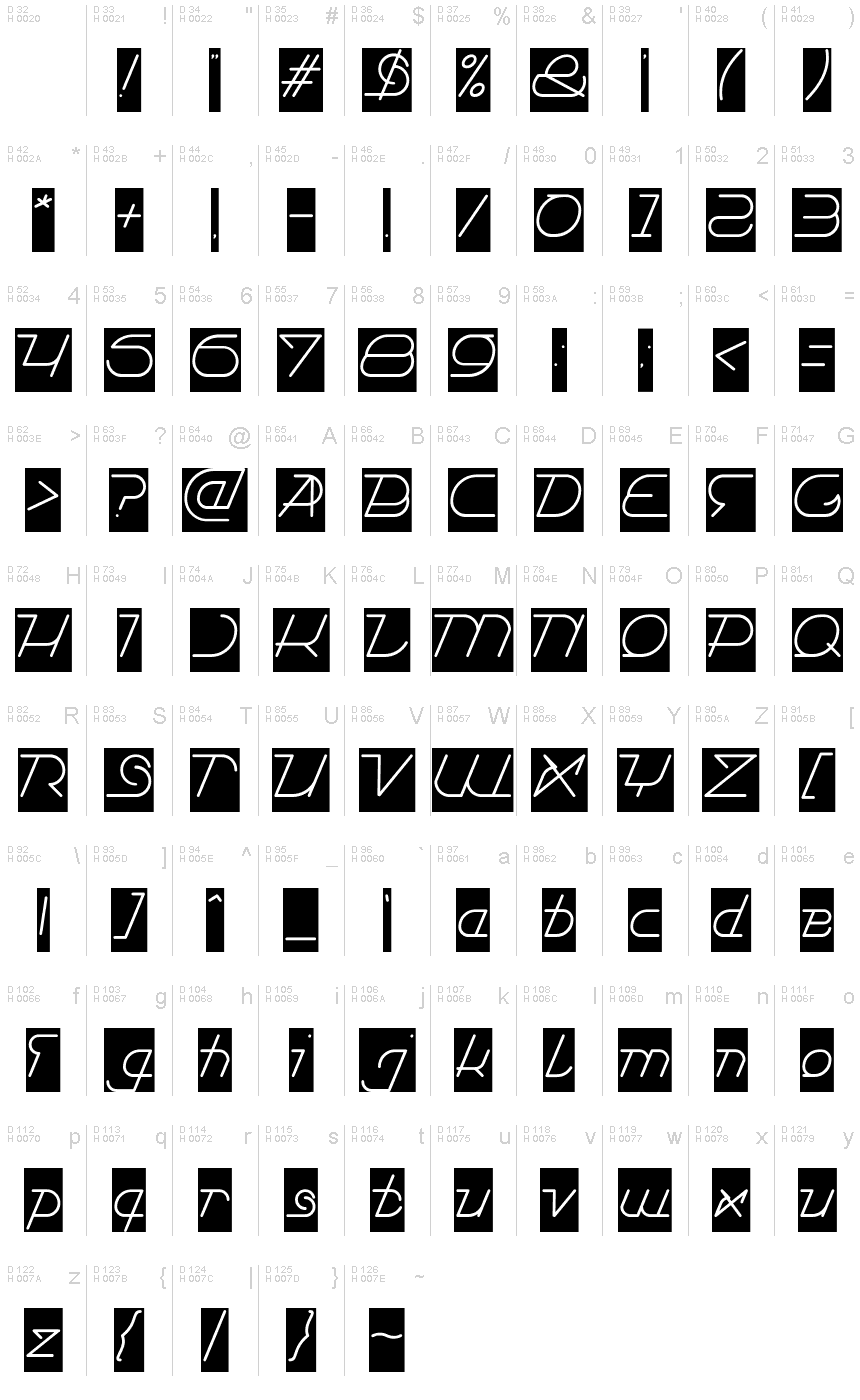
TRUE SELF RELIANT-Inverse
TRUE SELF RELIANT Inverse, designed by Weknow, is a striking display font that combines the essence of self-reliance with a futuristic twist. With its light weight and expanded width, this techno-inspired typeface is perfect for projects that demand attention and innovation. Use it to create captivating logos, eye-catching posters, or cutting-edge website headers. TRUE SELF RELIANT Inverse adds a touch of modernity to any design, making it suitable for technology startups, gaming titles, or even sci-fi book covers. Stand out from the crowd and embrace your true self-reliance with this bold and distinctive font.